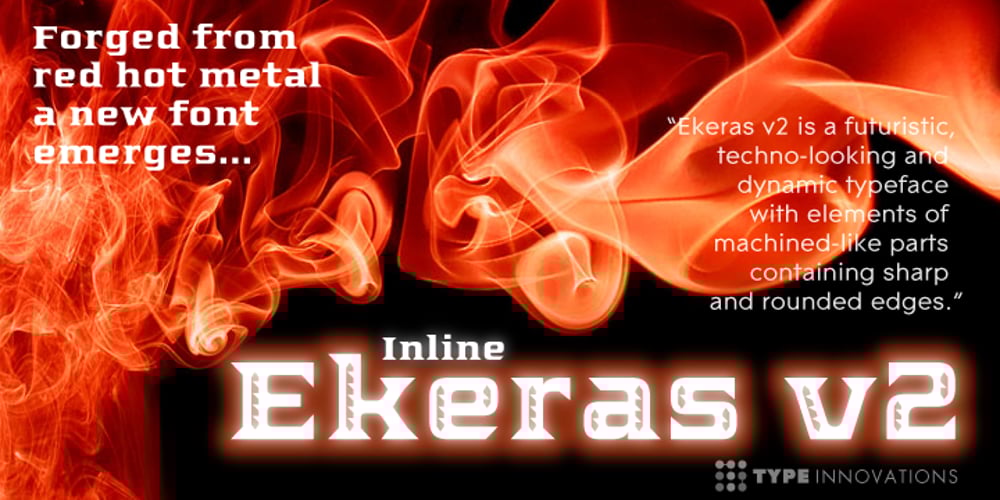
Ekeras V2
Ekeras V2 font
Ekeras V2 Font Family was designed by Alex Kaczun and published by Type Innovations. Ekeras V2 contains 1 styles and family package options. Ekeras V2 Inline is an original design by Alex Kaczun. It is a display font not intended for text use. It was designed specifically for display headlines, logotype, branding and similar applications. Primarily a display, this extremely versatile font has generous proportions, large counters and loose fitting which also allow the font to work well across a wide range of text sizes. The entire font has an original look which is strong, dynamic, machine generated and can be widely used in publications and advertising. Ekeras is a futuristic, techno-looking and dynamic typeface with an appearance of machined-like parts with sharp and rounded edges. The large Pro font character set supports most Central European and many Eastern European languages.